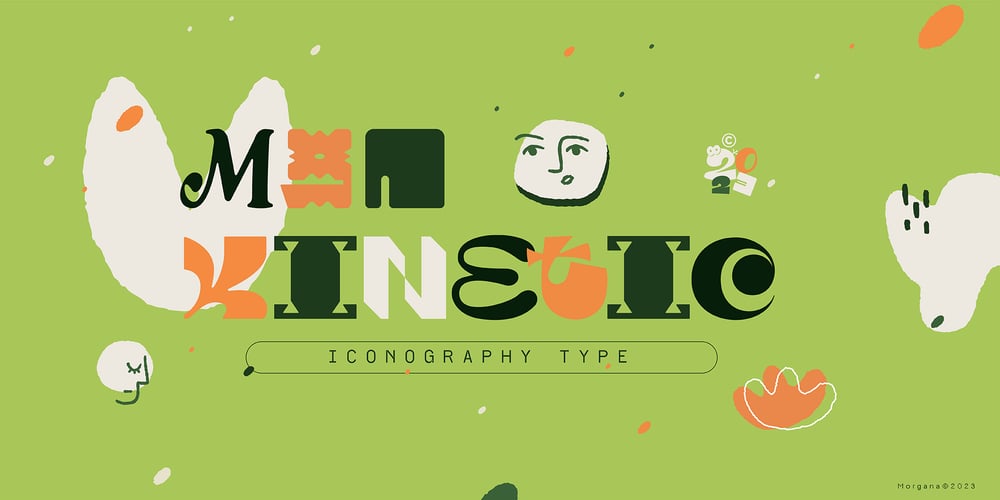
MGN Kinetic Font Family was designed by Muhamad Masyhuri, Fattah Setiawan and published by Morgana Studio. MGN Kinetic contains 7 styles and family package options. MGN Kinetic is an innovative font iconography type product released by Morgana Studio in 2023. This unique font set offers a fresh and dynamic approach to incorporating icons into your designs. MGN Kinetic features a one-of-a-kind design that sets it apart from other font sets, making it an ideal choice for designers who want to create eye-catching and memorable designs.One of the standout features of MGN Kinetic is its ability to bring movement and energy to your designs through its dynamic icons. These icons are designed to convey a sense of motion and fluidity, adding a new dimension of interest to your work. With MGN Kinetic, you can create designs that are not only aesthetically pleasing but also convey a sense of action and movement, making your work more engaging and memorable. Whether you’re designing for a website, app, or other digital media, MGN Kinetic is the perfect choice for designers who want to elevate their work and stand out from the crowd